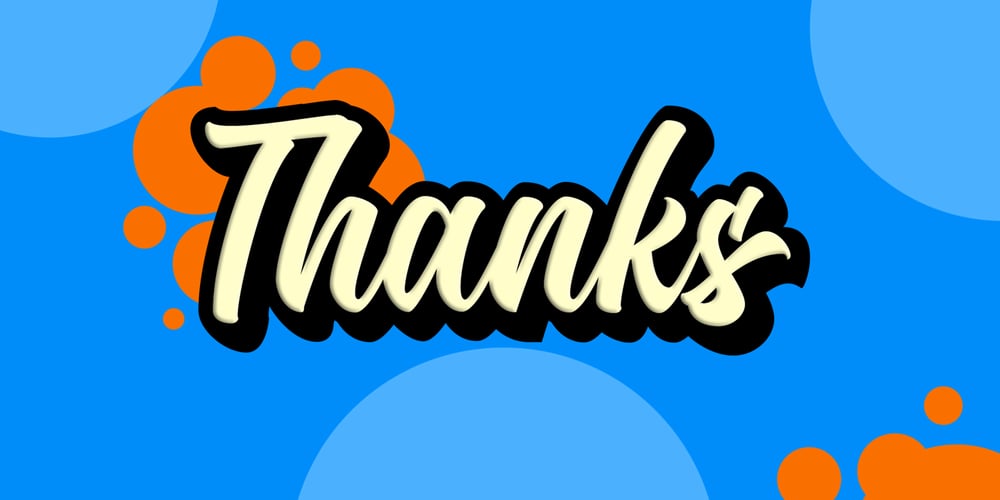
Stonekids Font Family was designed by Bangkit Tri Setiadi and published by Blankids. Stonekids contains 2 styles and family package options. Introducing a new Layered bold script called Stonekids. Stonekids inspired by handlettering, bold script logotype and kids fonts. Stonekids comes with open type features and multilingual accent good for logotype, poster, badge, book cover, t-shirt design, packaging and any more. Multilingual accents: ŽžŠŒšŸÀÁÂÃÄÅÆÇÈÉÊËÌÍÎÏÐÑÒÓÔÕÖØÙÚÛÜÝßàáâãäåæçèéêëìíîïðñòóôõöøùúûüýÿ Features: – Uppercase – Lowercase – Number – Punctuation – Multilingual – PUA Encode – Opentype